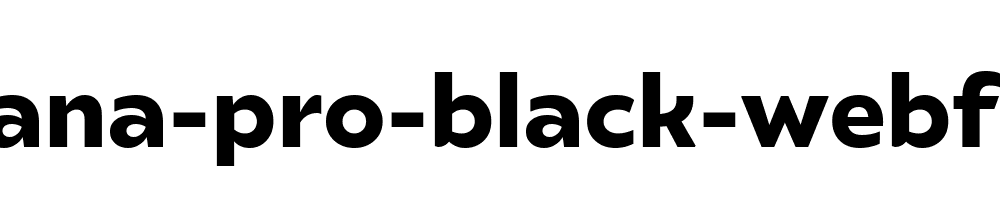
About ariana-pro-black-webfont
The font “Ariana Pro Black Webfont” is a bold and captivating typeface with a strong presence on the page. Its wide APERTURES and sharp APEXES give it a modern and edgy look, while the smooth ARC of its letters adds a touch of elegance. The sturdy ARMS and ASCENDERS of the font ensure readability and make a statement. The clean AXIS of each letter keeps the design balanced and cohesive, while the subtle BRACKETS provide a sophisticated touch. The closed COUNTERS of the font create a sense of solidity, while the subtle CROSSBARS add a hint of playfulness.
In terms of classification, the “Ariana Pro Black Webfont” falls into the category of Serious – Friendly. It strikes a perfect balance between being approachable and professional, making it suitable for a wide range of design projects. The font’s clean lines and strong structure give it a sense of reliability and trustworthiness, while its friendly curves and subtle details lend it a welcoming appeal. Overall, the “Ariana Pro Black Webfont” is a versatile and well-crafted typeface that is sure to make a lasting impression in any design.